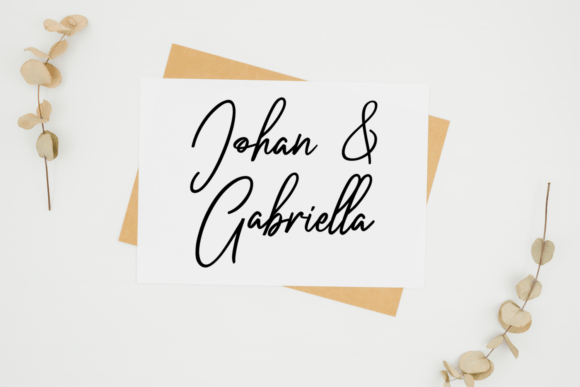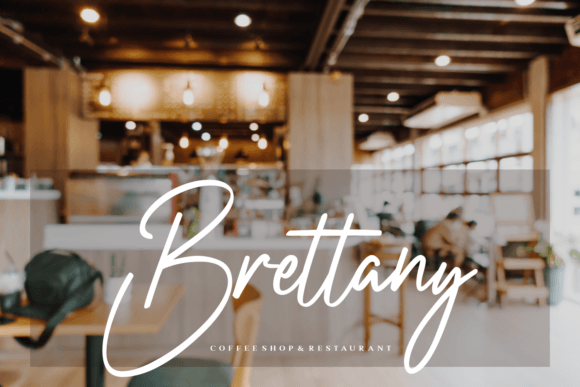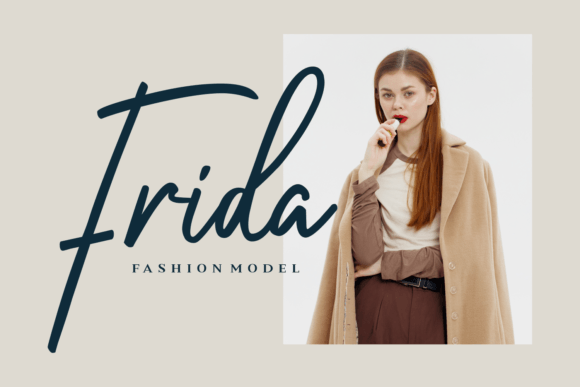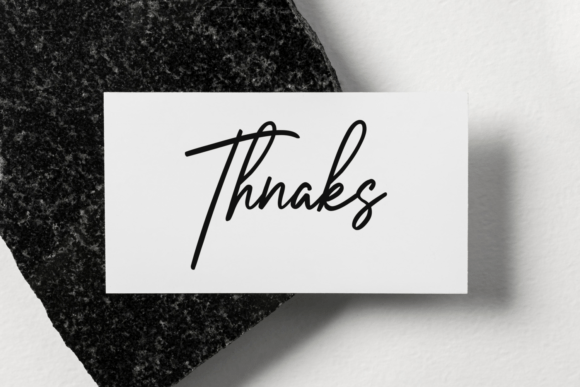
The Elegance of Besthetical Font: Elevating Your Designs
Have you ever been inspired by a beautiful script, one that transports you to a world of refinement and sophistication? I recall a moment when I stumbled upon a stunning wedding invitation, its elegant script font immediately captivating my attention. That moment sparked a curiosity in me to explore the world of modern script fonts, and it’s where I discovered the enchanting Besthetical Font.
Besthetical Font is a modern script font that exudes a sense of contemporary elegance, making it the perfect choice for designers seeking to elevate their projects. With its thin calligraphy style, it’s ideal for projects that require a touch of refinement and charm. From wedding invitations to social media graphics, the Besthetical Font adds a timeless beauty and modern charm that’s sure to captivate viewers.
Key Features of Besthetical Font
- Unique Characteristics: Besthetical Font features a unique blend of modern and elegant styles, with subtle curves and rounded edges, making it perfect for branding, advertising, and editorial design.
Besthetical Font Review
I’ve had the chance to work with the Besthetical Font, and I must say it’s an interesting addition to any design project. Here are some of the things that work well: ✨
- Unique aesthetic: Besthetical Font has a distinct, futuristic feel that can add a touch of modernity to any design.
- High legibility: Despite its unique design, the font is still easy to read, even at smaller font sizes.
- Customization options: The font comes with a range of customization options, including font weights and styles, making it easy to adapt to different design needs.
- Limited language support: Besthetical Font may not support certain languages or character sets, which could be a problem for projects that require multilingual support.
- Not ideal for body text: While Besthetical Font is great for headlines and titles, it may not be the best choice for body text, as it can be tiring to read at length.
Overall, I think Besthetical Font is a great addition to any designer’s toolkit, but it’s essential to use it judiciously and in the right context. With its unique aesthetic and high legibility, it’s perfect for adding a touch of modernity to a design project. Just be aware of its limitations and use it accordingly.
The Besthetical font is ideal for creating elegant and sophisticated designs, making it perfect for:
- Business cards and branding materials
Remember to use the Besthetical font in moderation to avoid overwhelming the design with too much text.